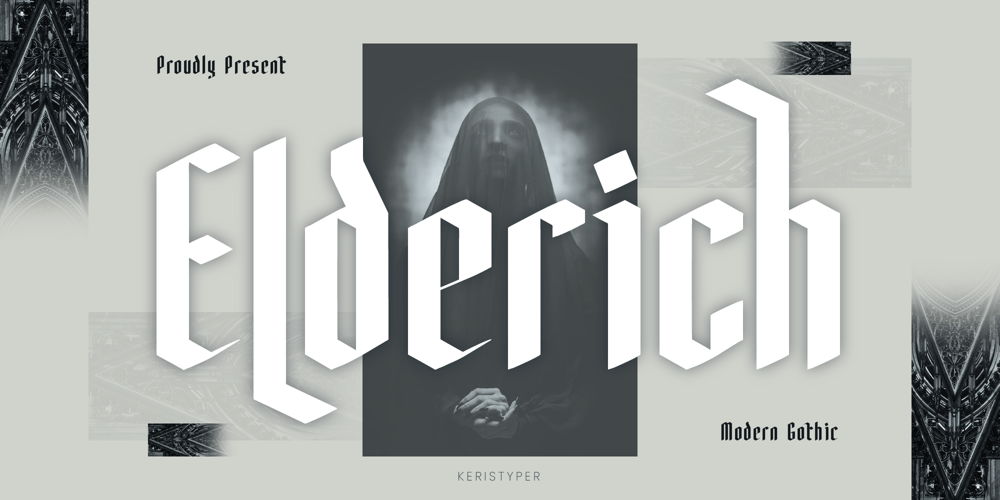
Elderich Font Family was designed by Tezar Tantular and published by Keristyper Studio. Elderich contains 1 styles and family package options. Introducing Elderich is a modern gothic typeface. Strong and geometric with a fraktur style inspired by the blackletter concept. This font is good for logo design, Social media, Movie Titles, Books Titles, short text even long text letters, and good for your secondary text font with script, sans, or serif.Featured: Standard Uppercase & Lowercase Numeral & Punctuation Multilingual : ä ö ü Ä Ö Ü ß ¿ ¡ Alternate & Ligature PUA encoded We recommend programs that support the OpenType feature and the Glyphs panel such as Adobe applications or Corel Draw. so you can use all the variations of the glyphs.Hope you enjoy our fonts!